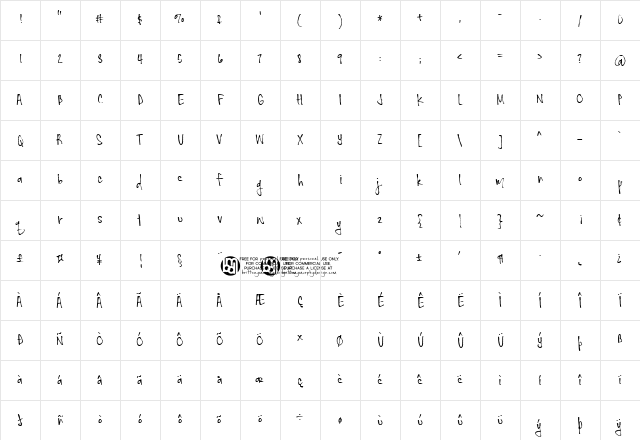
skydancer Regular
| Foundry | Brittney Murphy |
| Designer | Brittney Murphy |
Design Context for skydancer Typeface
skydancer is a composed and adaptable typeface that performs quietly and consistently across a wide range of design contexts.